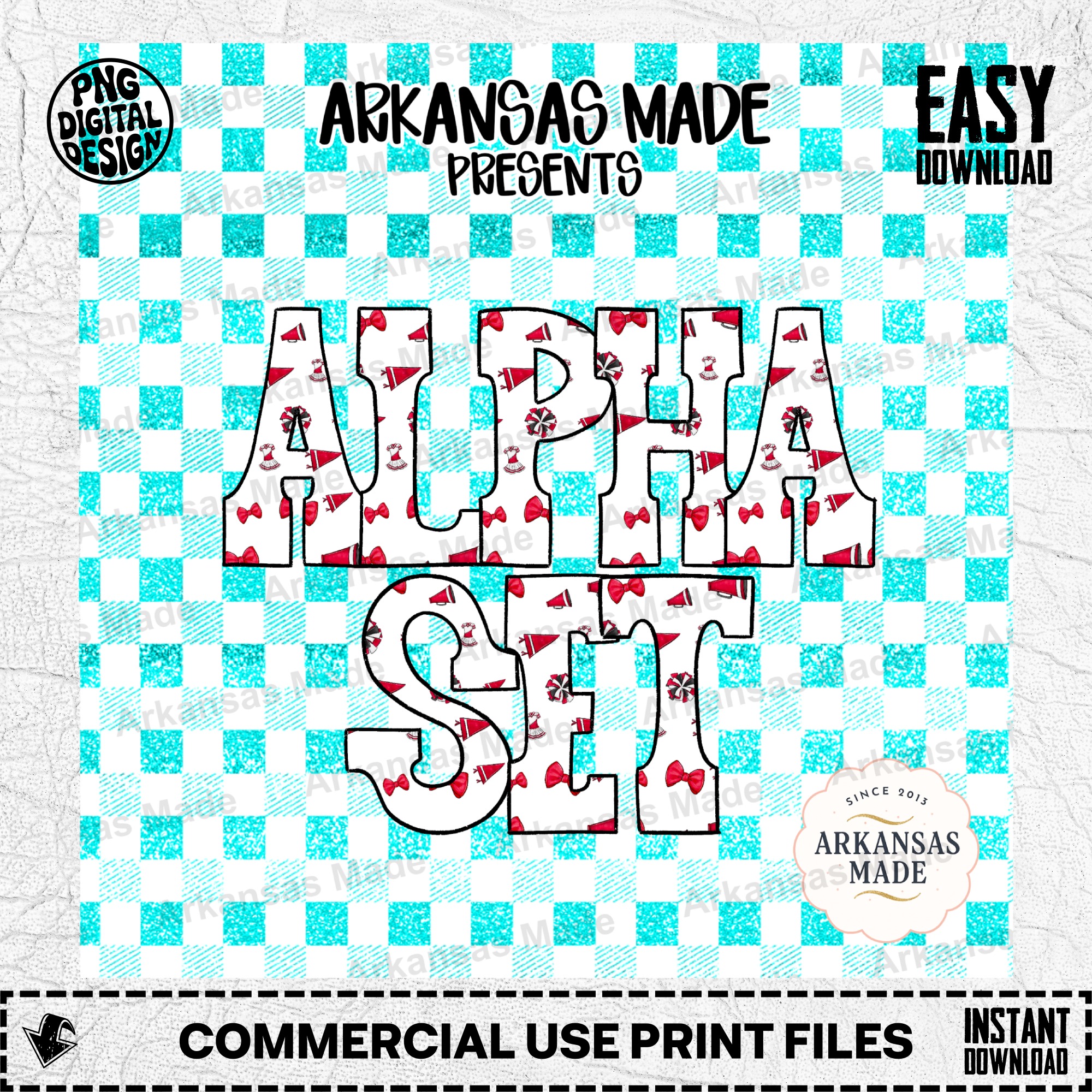
Cheerleader Alpha PNG Set, Red Cheer Alphabet Letters, Digital Download PNG for Game Day Crafts, School Spirit Font
Get ready to cheer with this vibrant Cheerleader Alpha PNG Set! Featuring a full alphabet with adorable red cheer bows, megaphones, and outfits for all your game day designs. Perfect for cheer moms, coaches, and sports enthusiasts creating custom apparel, team banners, or unique school spirit projects. This digital download is ideal for personalizing t-shirts, mugs, invitations, and more. Celebrate your favorite team or cheer squad with these spirited and easy-to-use letter designs.